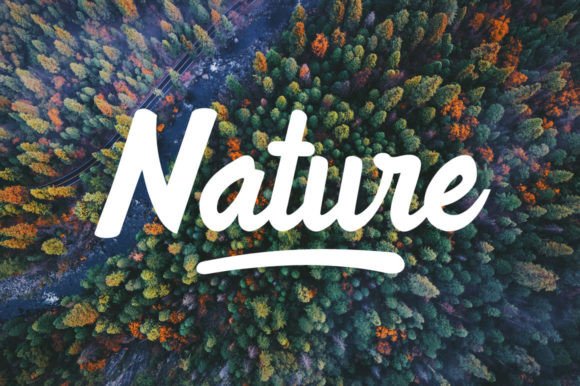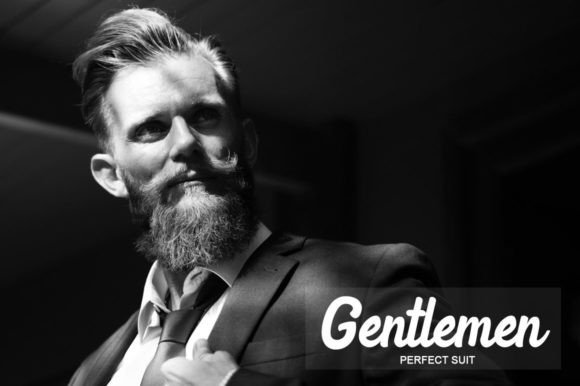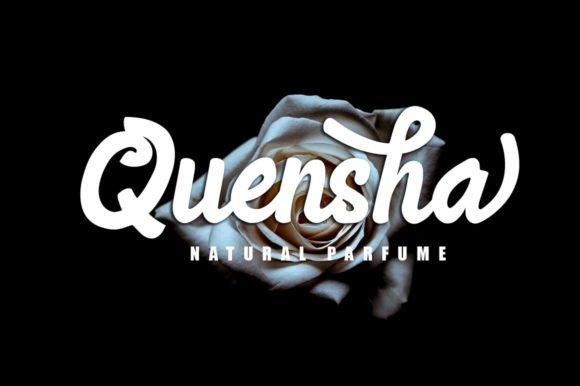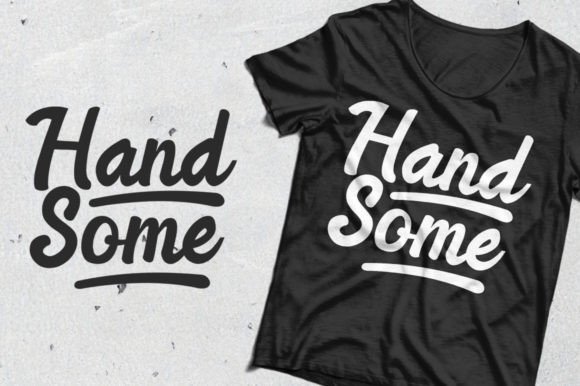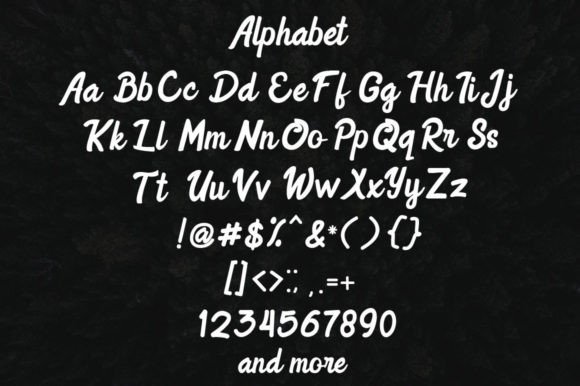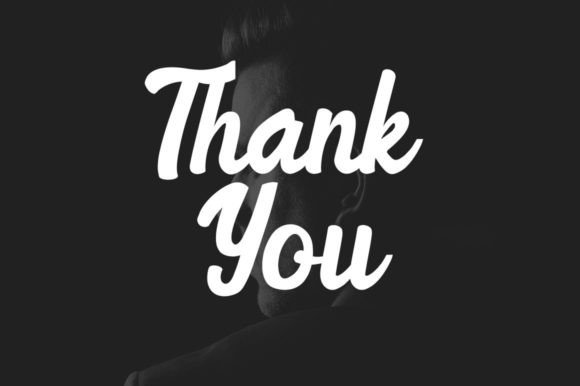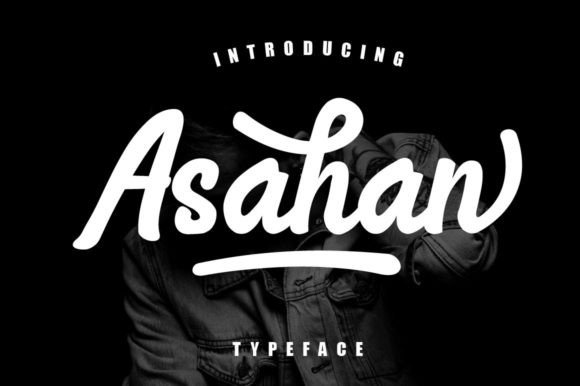
Introducing Asahan Font: Elevate Your Designs with a Stylish and Bold Touch
In the world of design, typography plays a crucial role in conveying the message and aesthetic of a project. For designers and crafters looking to add a touch of personality and style to their work, the Asahan Font is an excellent choice. This gorgeous and bold paint-brushed handwritten font is crafted to give your headlines and logotype projects a stylish touch that’s sure to capture attention.
The Characteristics of Asahan Font
Asahan Font reads as strong, confident, and dynamic, making it perfect for designers who want to add a sense of energy and movement to their work. The font’s bold and paint-brushed strokes give it a unique, handcrafted feel that’s reminiscent of traditional sign painting and brush script. This nostalgic character can add a touch of warmth and personality to your designs, setting them apart from more generic and digital-looking fonts.
Key Features of Asahan Font
- Bold and Paint-Brushed Strokes: Asahan Font features bold, paint-brushed strokes that give it a dynamic and expressive feel.
- Handwritten Style: The font’s handwritten style adds a touch of personality and warmth to your designs.
- Strong and Confident: Asahan Font reads as strong and confident, making it perfect for headlines and logotype projects.
- Nostalgic Character: The font’s traditional feel can add a touch of nostalgia and character to your designs.
Uses for Asahan Font
Asahan Font is versatile and can be used for a variety of design projects, including:
- Headlines and Titles: Use Asahan Font to create bold and eye-catching headlines and titles.
- Logotype and Branding: The font’s unique style makes it perfect for logotype and branding projects.
- Signage and Advertising: Asahan Font can add a touch of personality and style to signage and advertising projects.
- Packaging and Label Design: The font’s bold and expressive feel makes it suitable for packaging and label design.
In conclusion, Asahan Font is a stylish and bold paint-brushed handwritten font that’s perfect for designers and crafters looking to add a touch of personality and style to their work. With its strong and confident feel, nostalgic character, and versatile uses, Asahan Font is an excellent choice for any design project. Whether you’re working on headlines and titles, logotype and branding, signage and advertising, or packaging and label design, Asahan Font is sure to elevate your designs and help you stand out from the crowd.